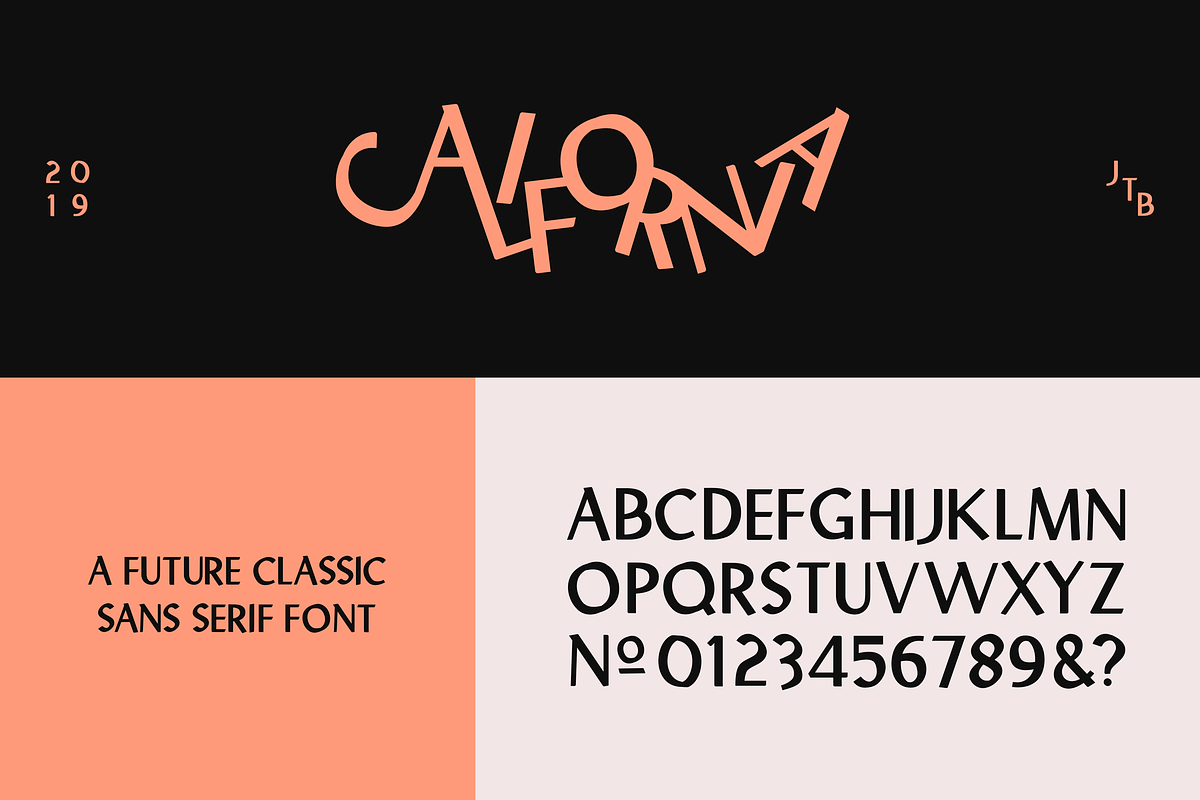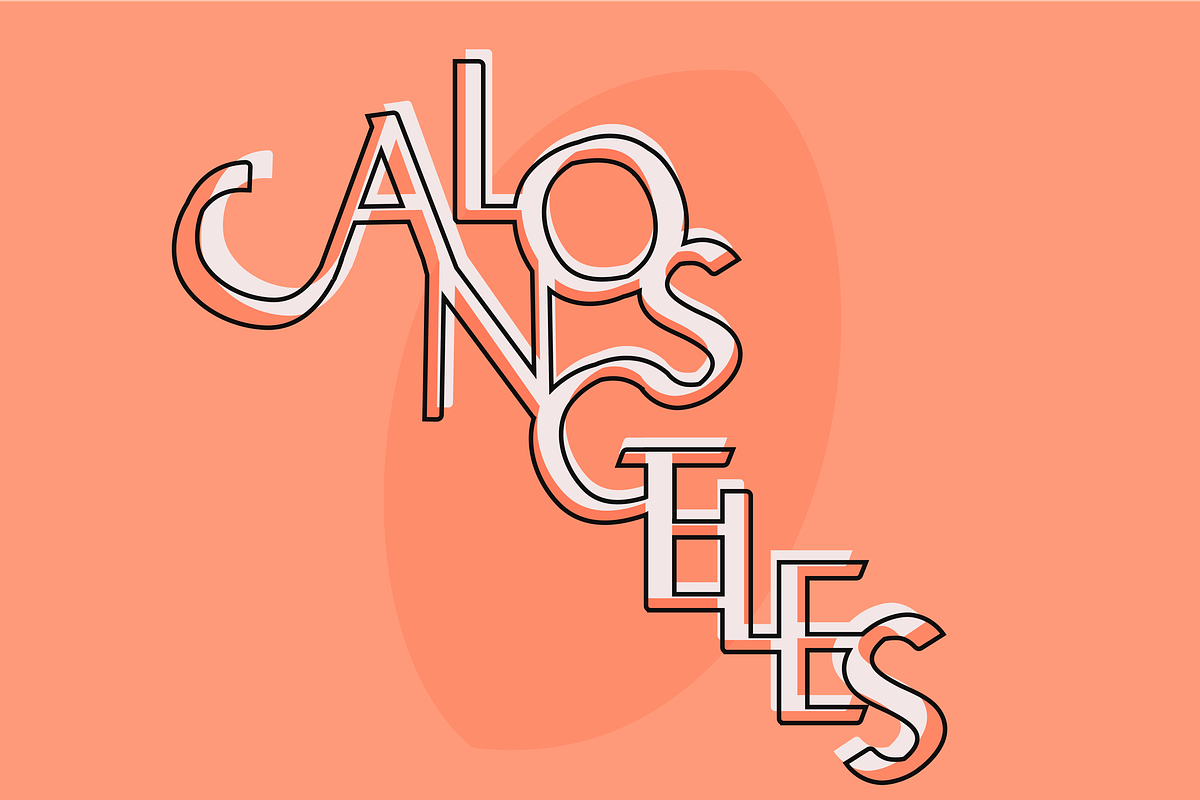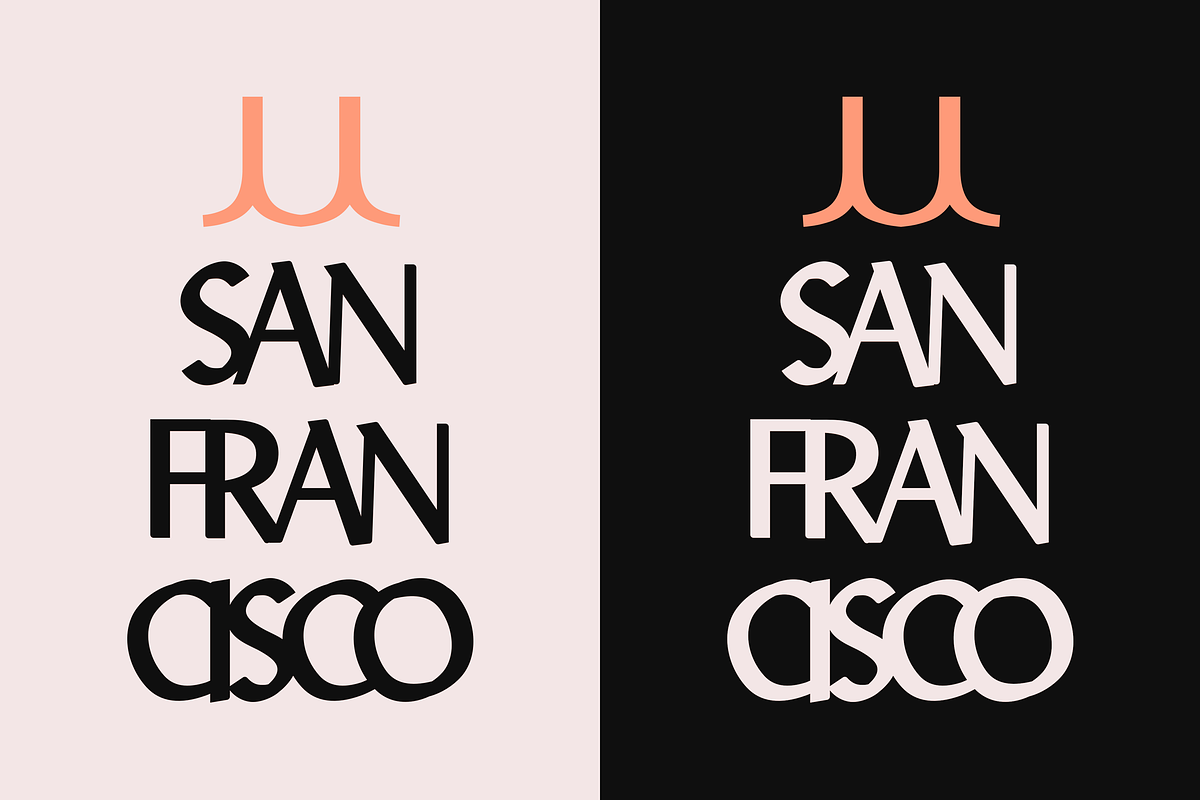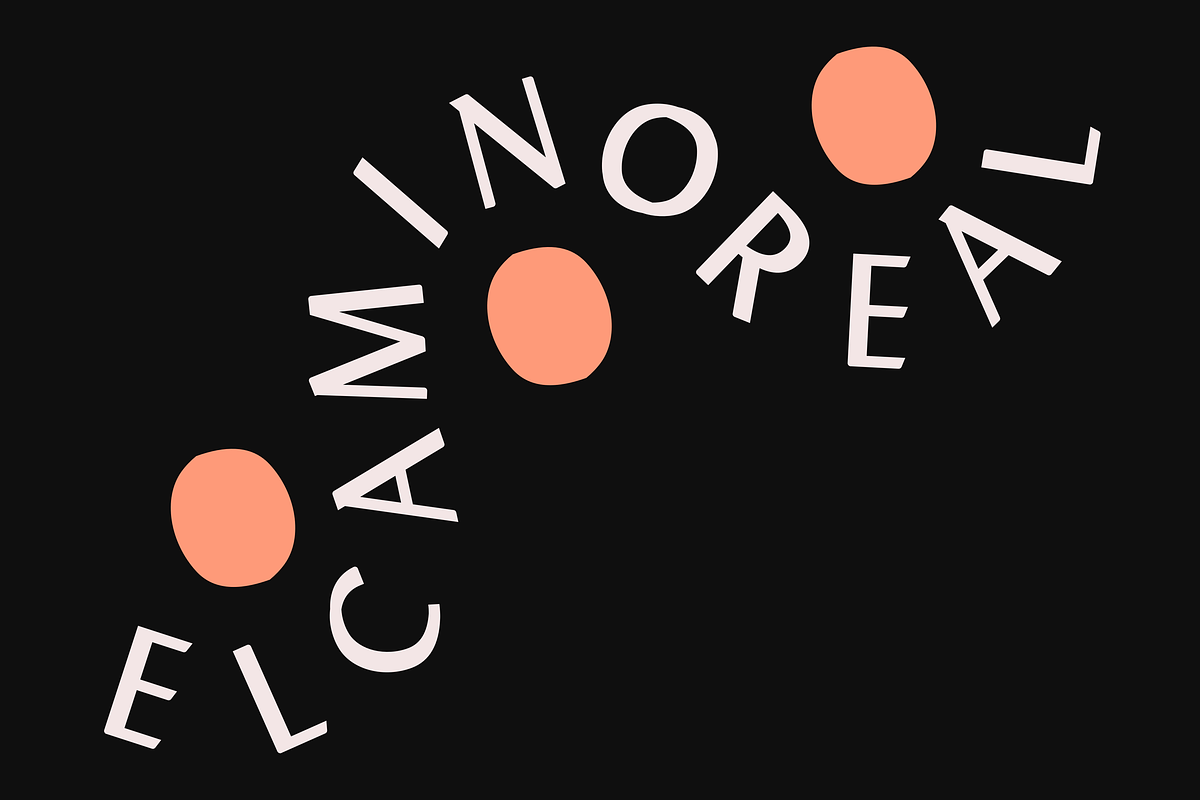
California | A Future Classic Font
California is a Future Classic Sans Serif typeface. In an ode to the olde days of Alta California this font was designed embodying the complex history of the pinnacle of the west coast. California is ready for you.
Updated 8/7/21: refinement & sharpening of all characters, professionally kerned, ligature support